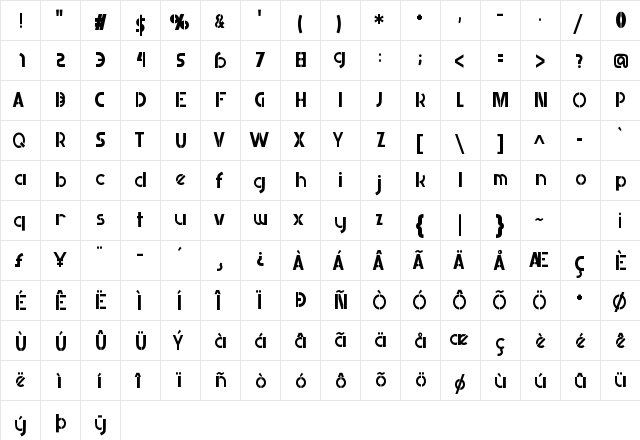
Retailistic Regular
| Foundry | Xerographer Fonts |
| Designer | Max Infeld - Xerographer Fonts |
Design Context for Retailistic Typeface
Retailistic is a composed and adaptable typeface that performs quietly and consistently across a wide range of design contexts.